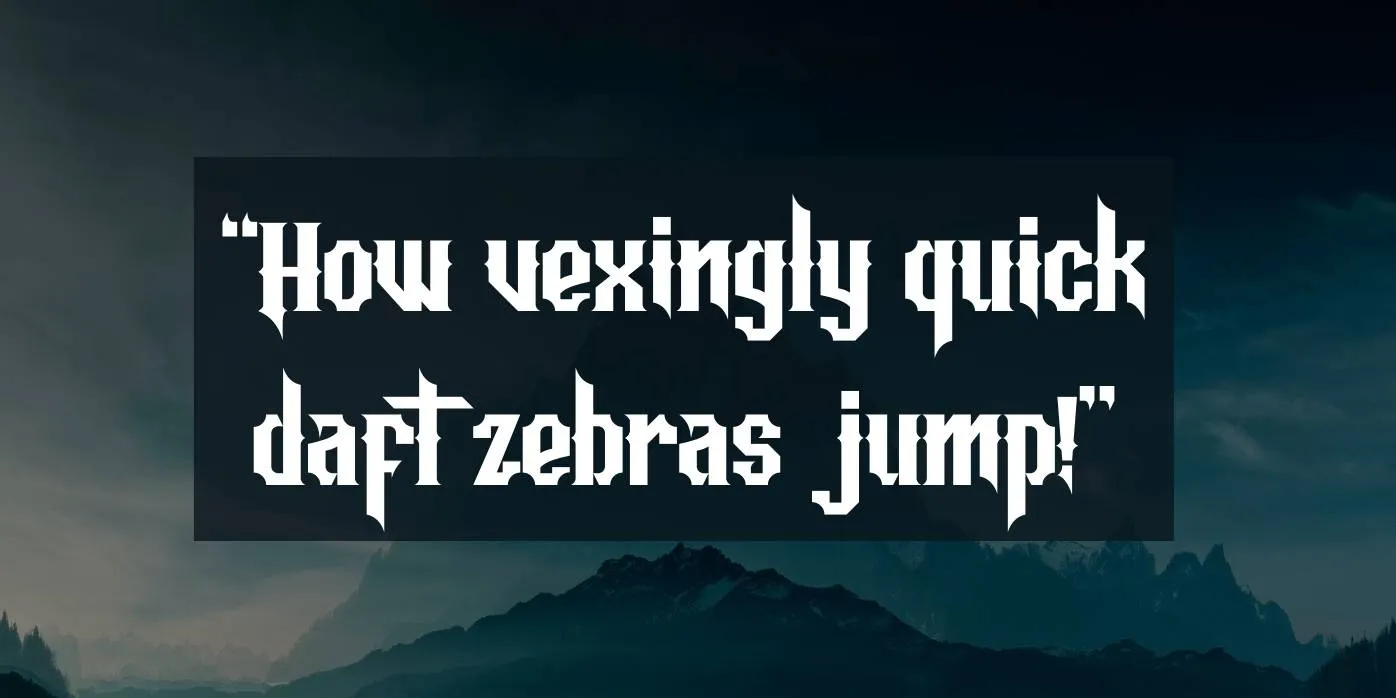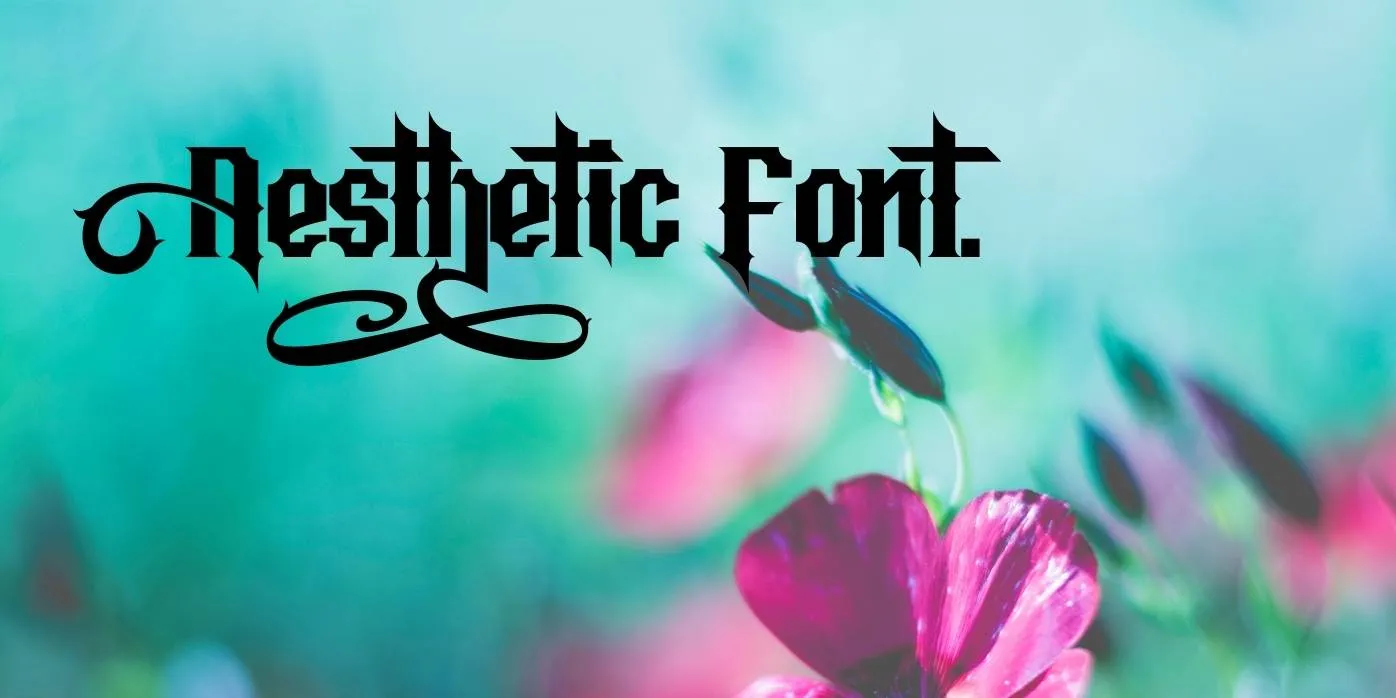
Aesthetic Font
Aesthetic Font was developed by Figure Studio. This typeface belongs to the Fancy typeface. This font design is a reality that looks really amazing. This typeface has keen features.
There is 3 version of this stunning font. This awesome typeface is available in different styles. some kinds of styles are Thin and light. This typeface is best for advertisements, modern posters, headlines, quotes.
Its copy and paste function is perfect. It is best when put in projects by making pairing with Synthesia Font. This font is famous due to its unique Glyphs and aesthetic design. This font is a stylish typeface for refined and various projects.
This classy Font has a great feature because this typeface never decreases its style in all scenarios. This Staggering font is very modern and popular among designers.